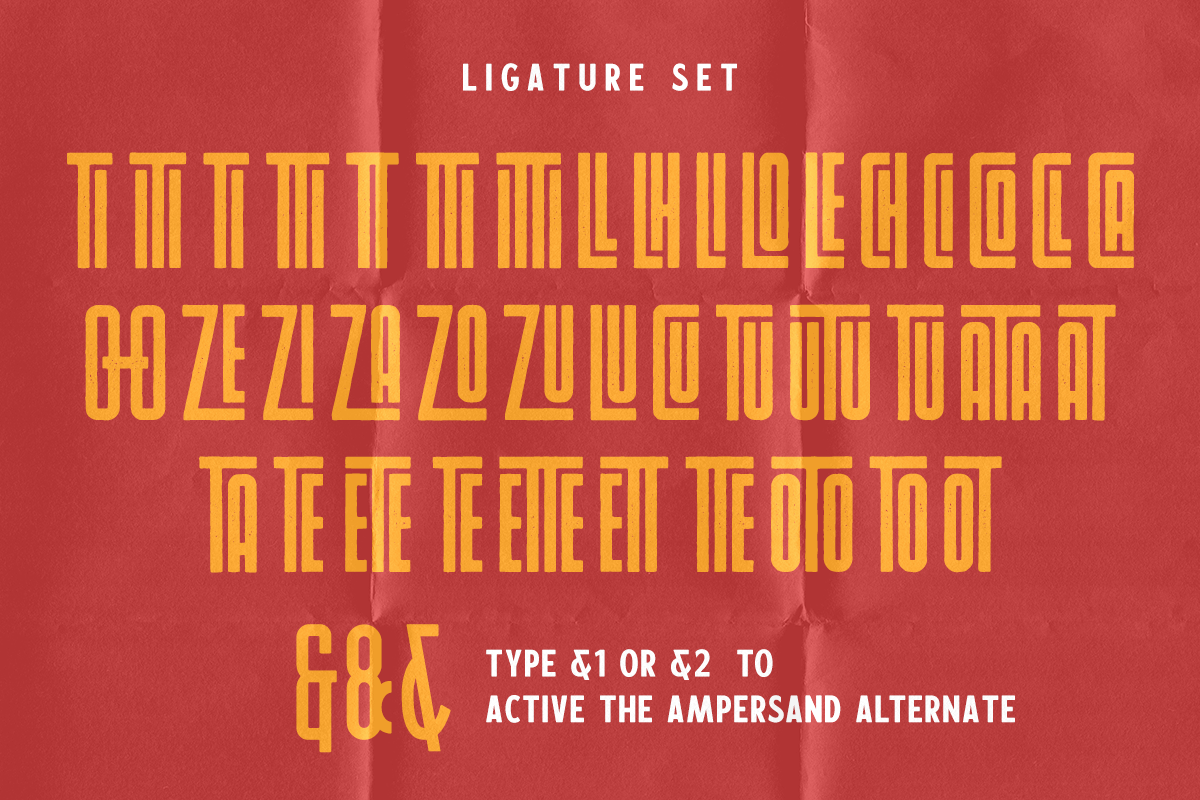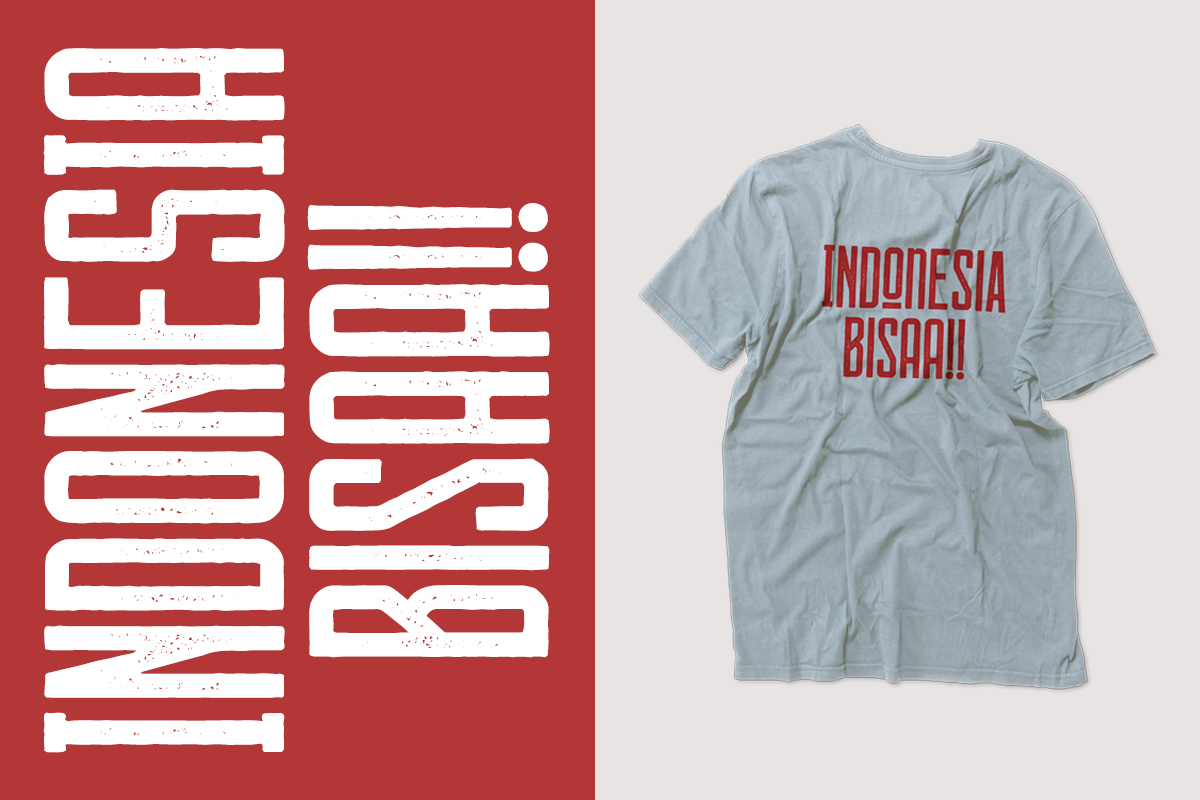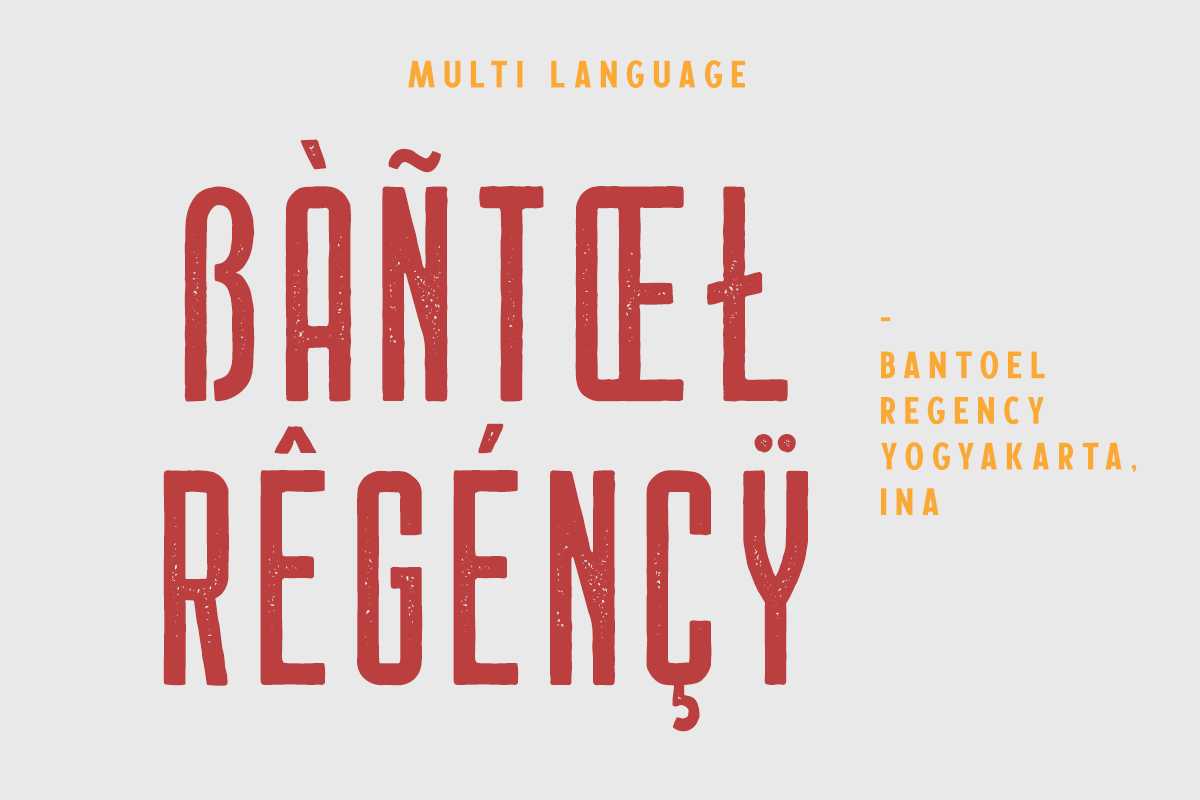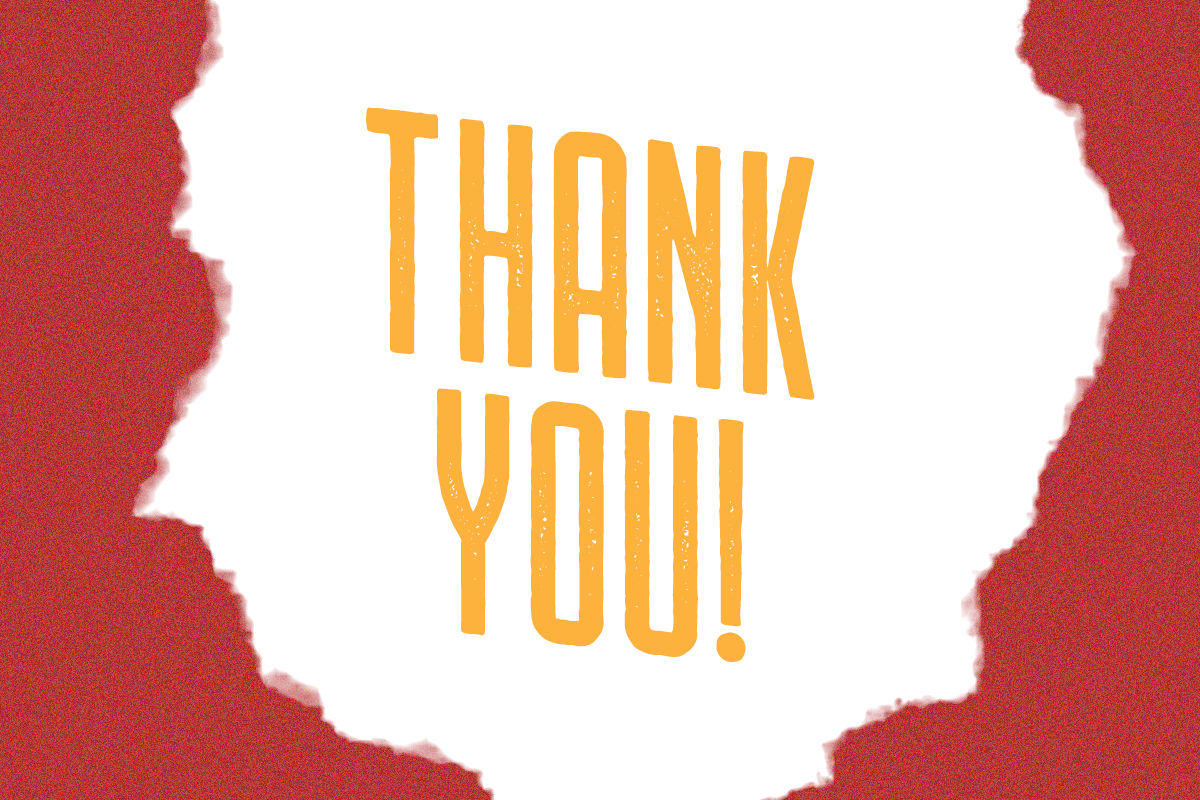
Chillvornia Stamp
CHILLVORNIA STAMP is a family sans serif font designed with carefully handcrafted. Also suitable for branding, T-shirt, Wedding Invitation, Classic Design, Logotype, and any project. With two style make you easier to design everythings.
- Chillvornia Stamp
- Chillvornia Stamp Slant
- Calderock Stamp
- Calderock Stamp Slant
Multilingual Support support many different languages 20+ .